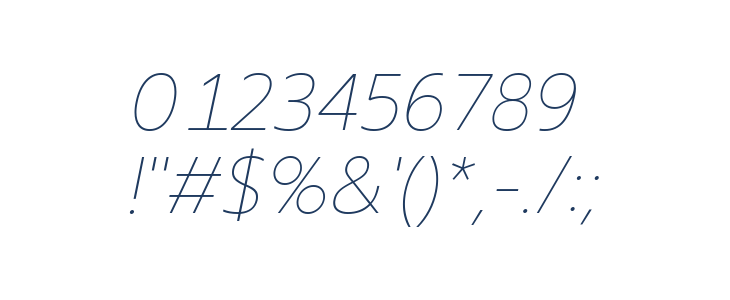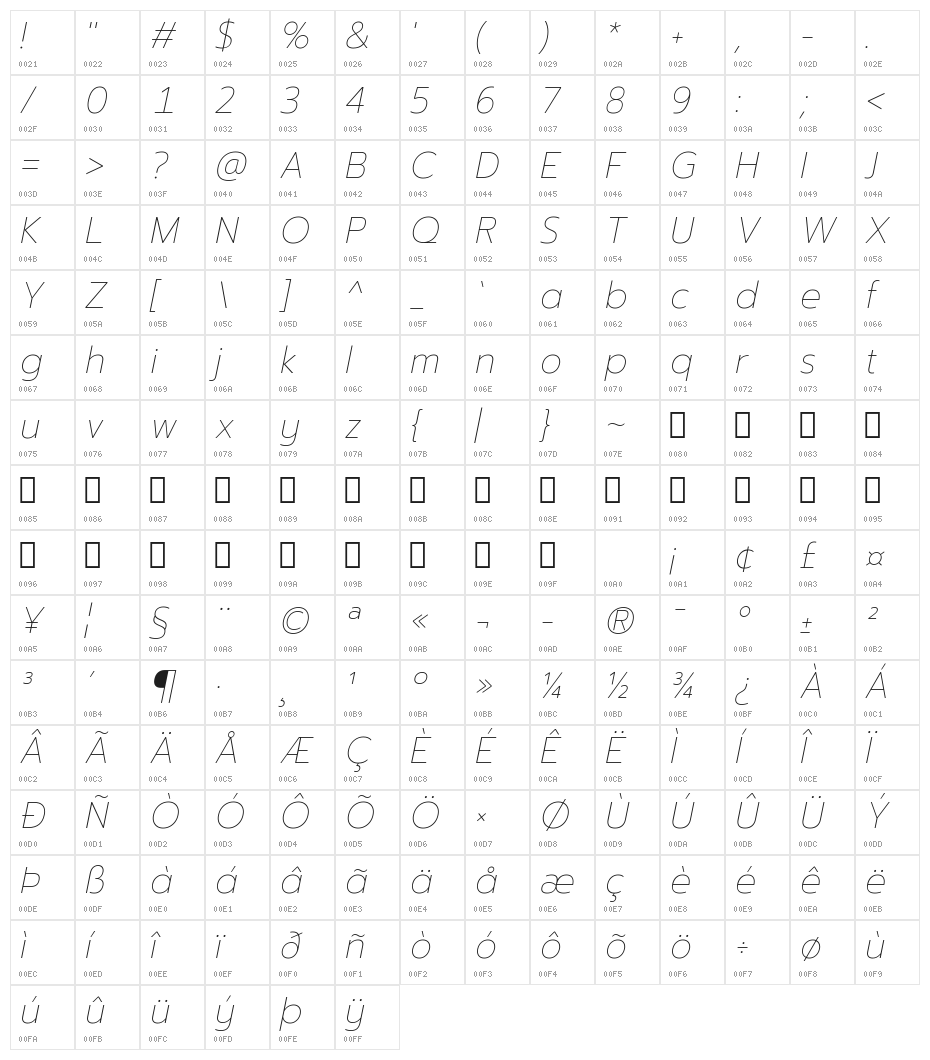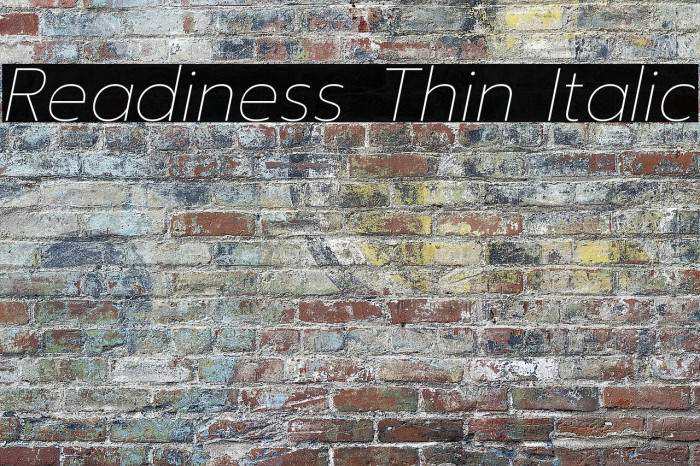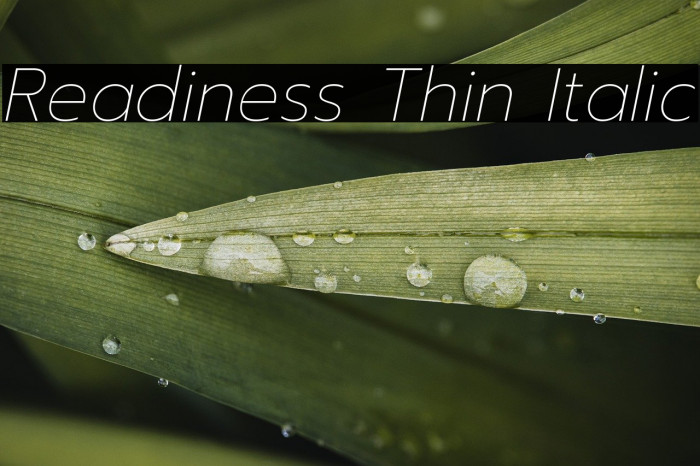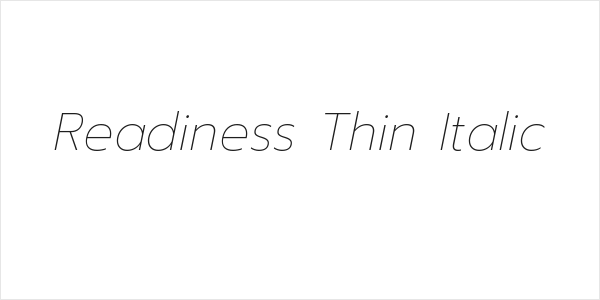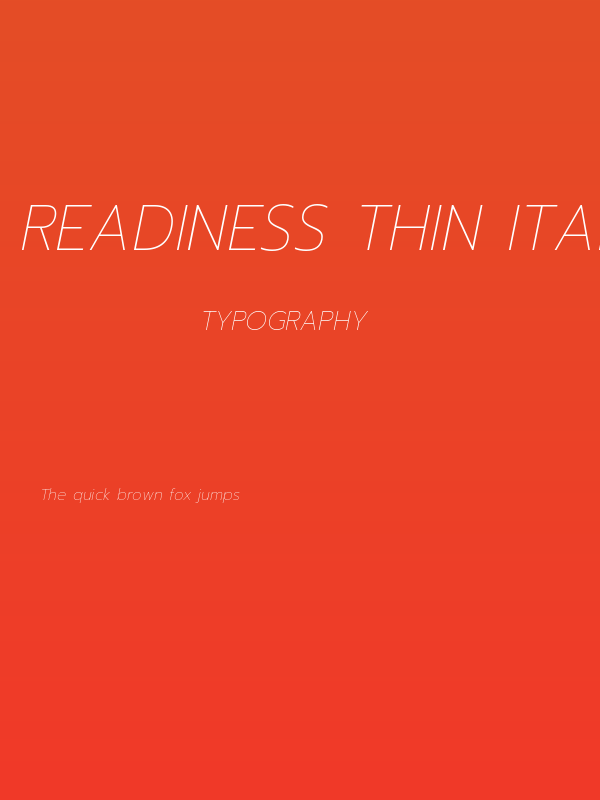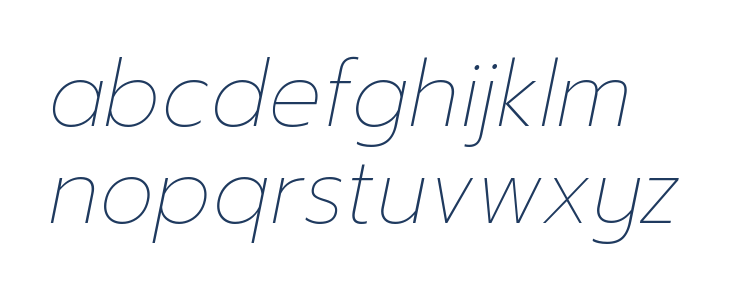
Readiness Thin Italic Font
Readiness Thin Italic Description
This font features a sleek and elegant design with thin, elongated letterforms that convey a sense of modernity and sophistication. The italic style adds a dynamic and fluid motion to the characters, enhancing its contemporary appeal. Each letter is crafted with precision, maintaining a consistent stroke width that contributes to its refined appearance. The font's minimalistic approach is evident in its clean lines and open counters, making it highly legible even at smaller sizes. The numerals and special characters complement the alphabet with the same thin and graceful strokes, ensuring uniformity across all elements.